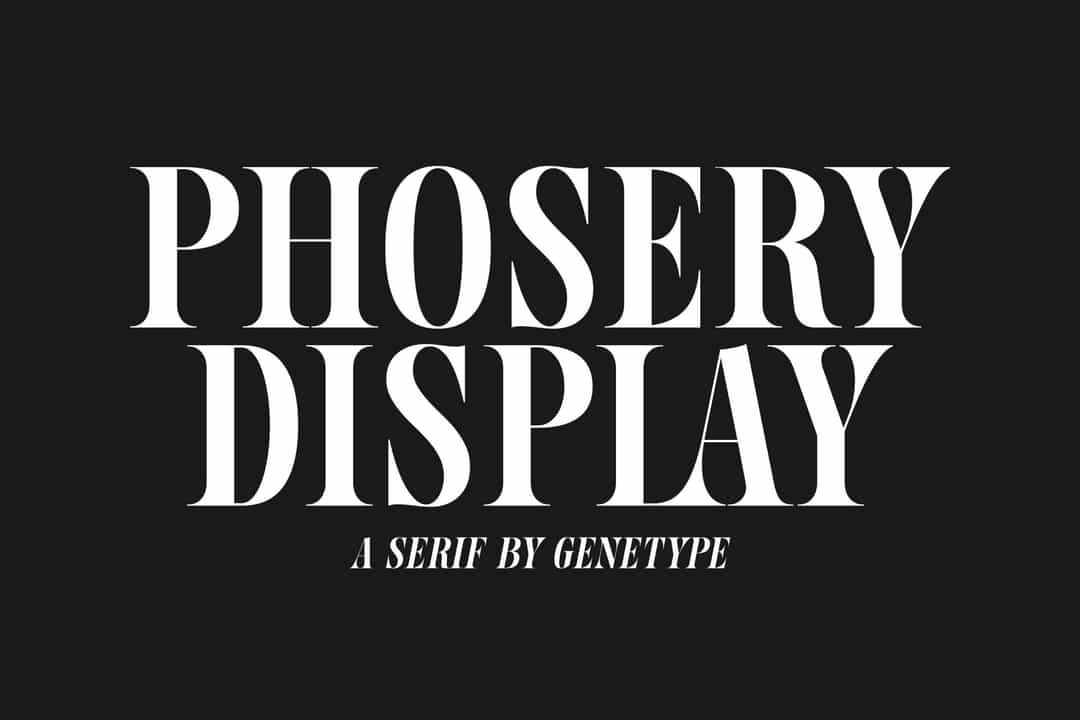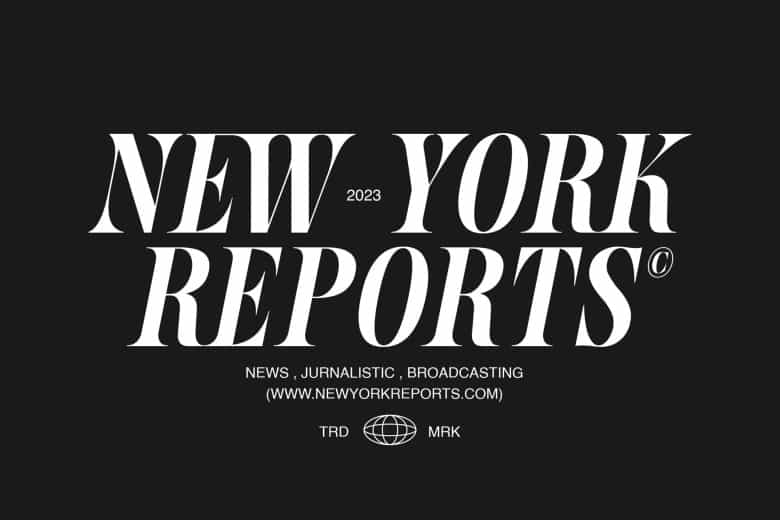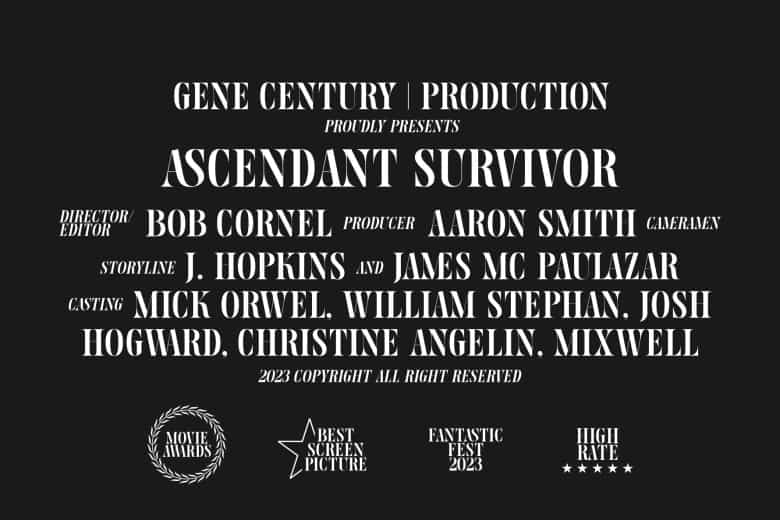
Phosery Display Serif Font Reignite Elegance Experience the art of premium typography once more by using Phosery Display Serif. Designed for sophisticated projects from branding to stationary, the Phosery Display brings luxury and elegance into each serif of its font design – creating an exquisite experience and adding classy appeal. Allow Phosery Display Serif to elevate elegance up to new heights.